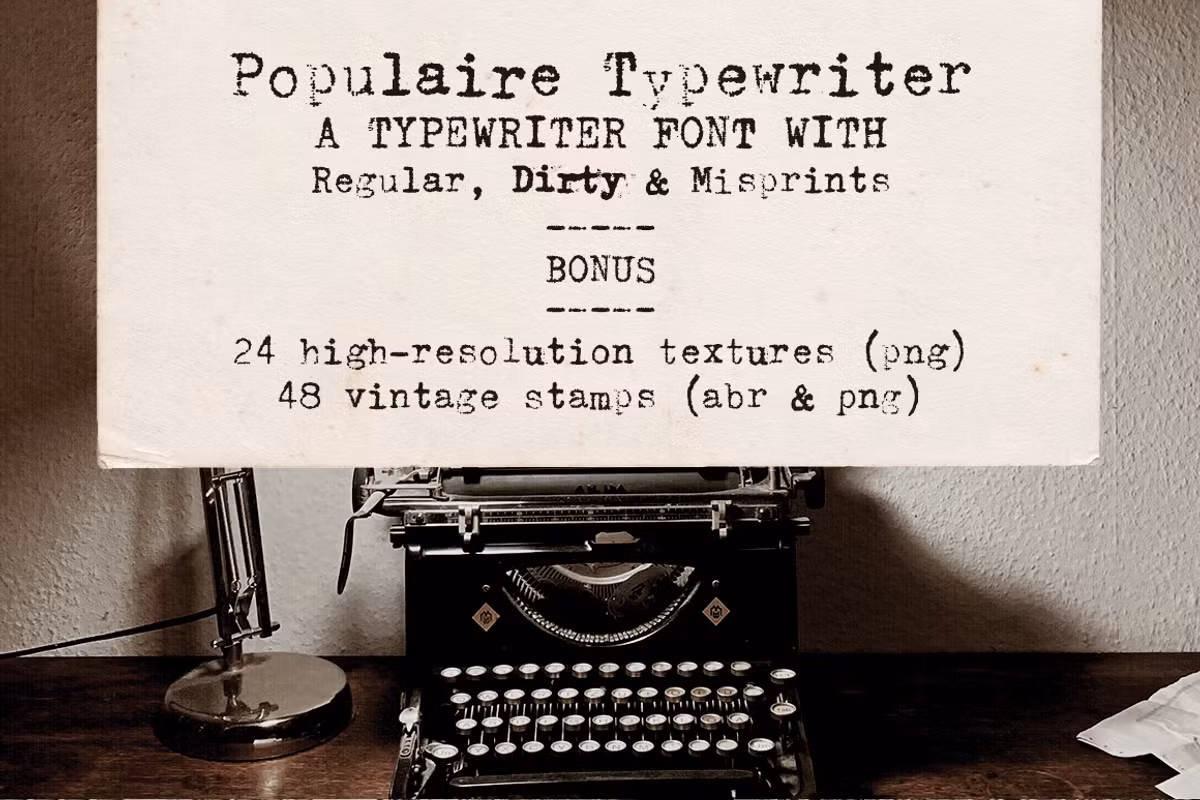
Populaire Typewriter Font & Extras Free Download is a charming and nostalgic typeface that captures the essence of old-fashioned typewriter typography. With its vintage-inspired design and character-filled letterforms, this font is perfect for creating retro branding, posters, invitations, social media graphics, and more.
The extras included in the collection provide additional design elements such as swashes, icons, and stylistic alternates, allowing for greater creative flexibility and customization in your designs. Whether you're working on a vintage-themed project, a creative editorial layout, or a unique logo, Populaire adds personality and character to your typography.